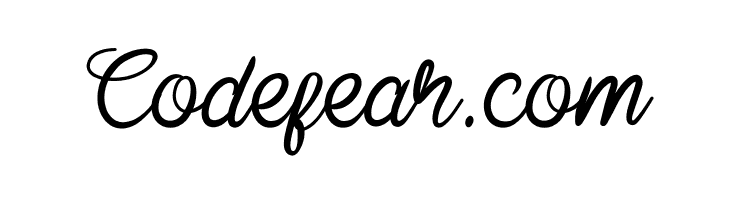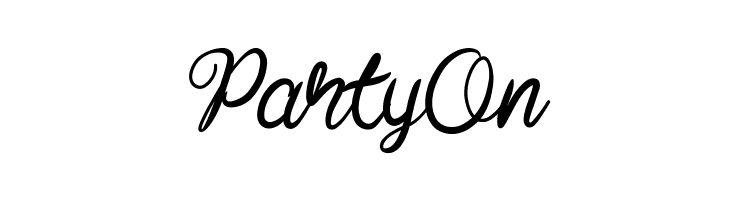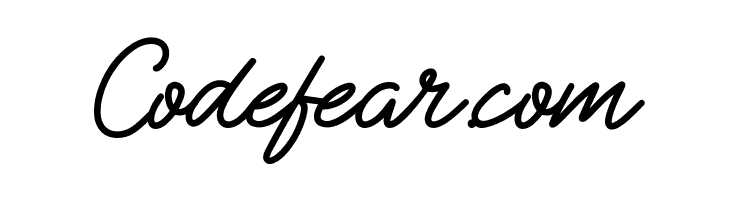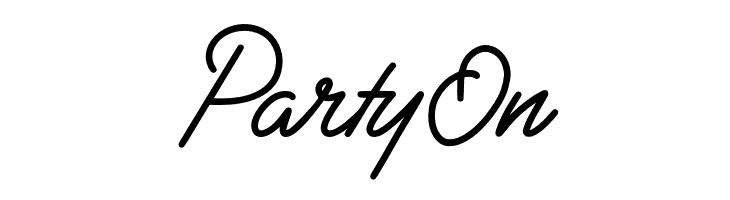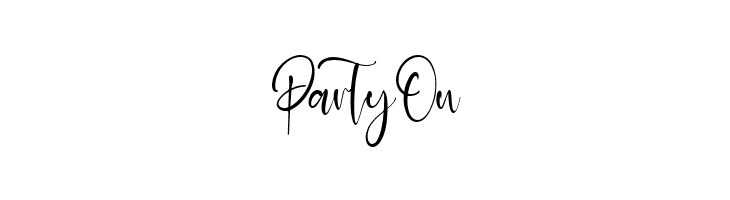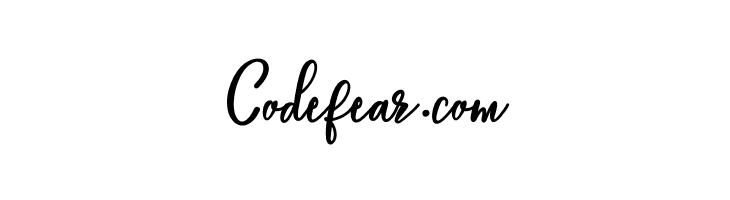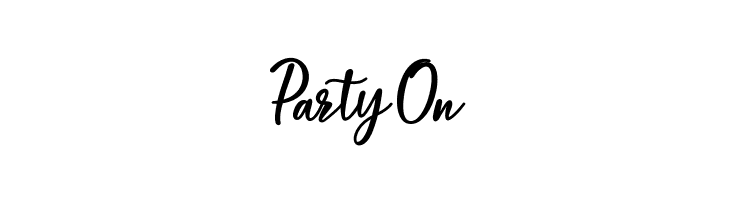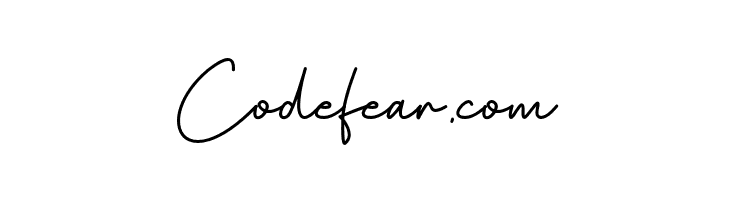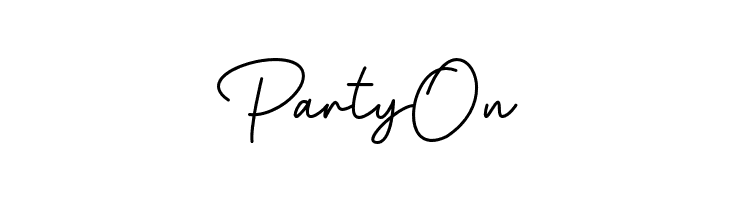
A dynamic and elegant script font with flowing cursive letterforms.
A flowing, cursive script font with elegant, handwritten characteristics.
A modern script font with elegant, flowing lines and high contrast.
A graceful script font with fluid, connected strokes and a natural handwriting style.
A flowing, cursive script font with elegant loops and swashes.
A lively and elegant script font with flowing, connected letterforms.
A playful and elegant script font with fluid, connected strokes.
A graceful script font with elegant swirls and loops, perfect for sophisticated designs.
A graceful script font with flowing, cursive letters and elegant loops.